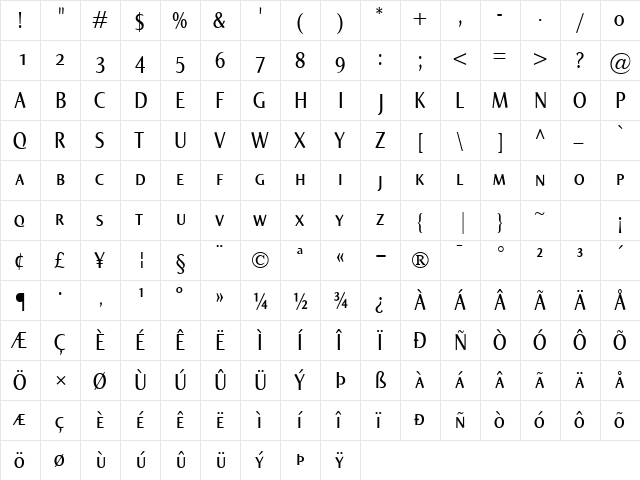
Norma Cond SmallCaps Regular
Design Context for Norma Cond SmallCaps Typeface
Norma Cond SmallCaps is a composed and adaptable typeface that performs quietly and consistently across a wide range of design contexts. The condensed width makes it efficient for tight spaces without sacrificing legibility.